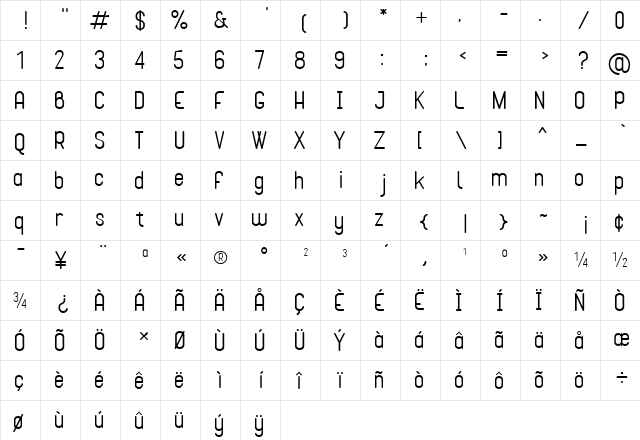
Cona Regular
Design Context for Cona Typeface
Cona takes a measured approach to typography — its balanced proportions and neutral character make it a reliable workhorse for both digital and print work.